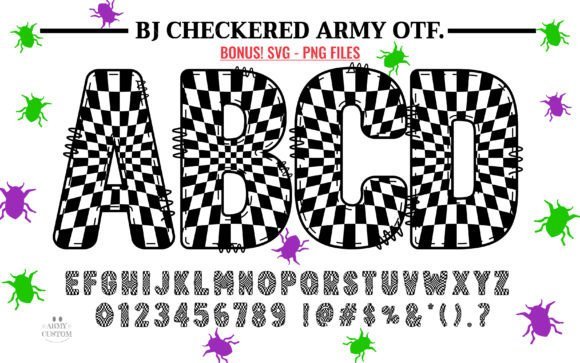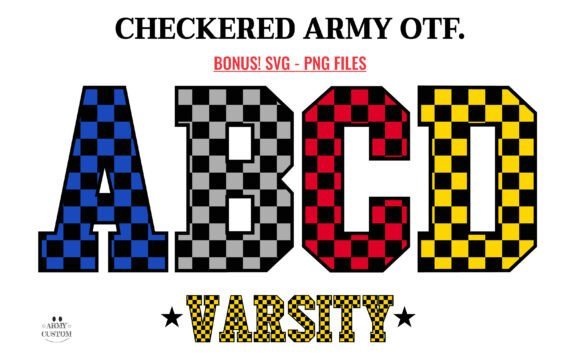
Step into the World of Whimsy with the Checkered Back to School Bundle Font Remember the thrill of walking into a colorful classroom, surrounded by the hum of creativity and the promise of new adventures? For many of us, back to school season is a nostalgic time capsule that sparks imagination and fuels our love…